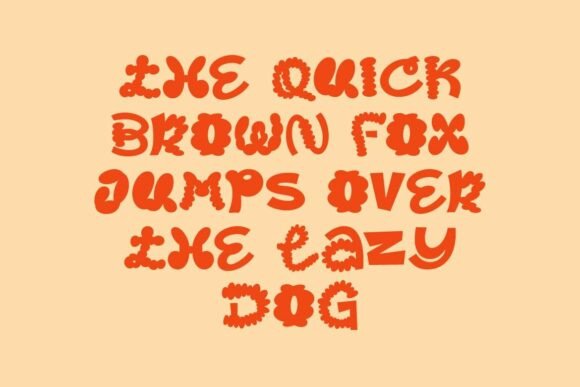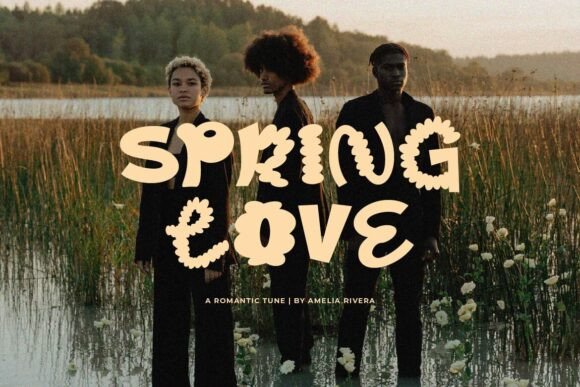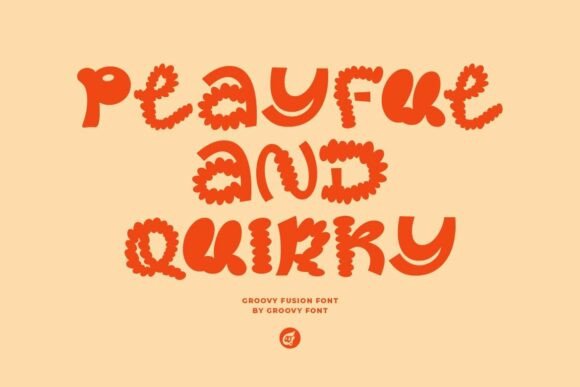
Introduction to Groovy Fusion Font
Groovy Fusion is a playful display font that effortlessly blends different letter styles to create a fun and unique aesthetic.
With its mix of bold and curvy lettering, this font is perfect for conveying a sense of creativity and imagination, making it a great fit for children’s designs Whether used for a cheerful poster, colorful packaging, or vibrant illustration, Groovy Fusion brings a playful and cheerful feel to any project, making it a fun choice for appealing to a young audience.
Why Choose Groovy Fusion Font?